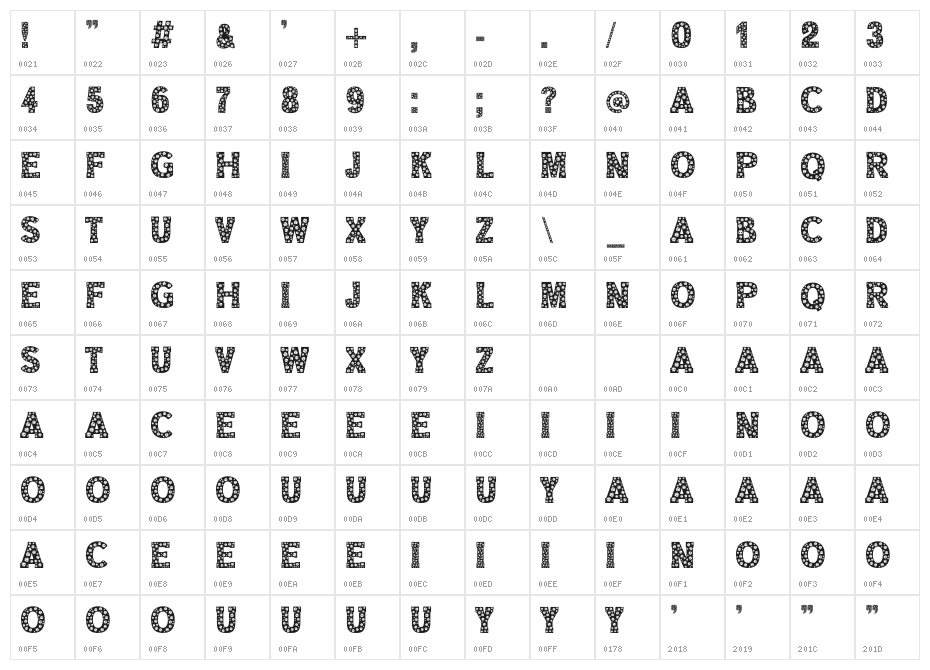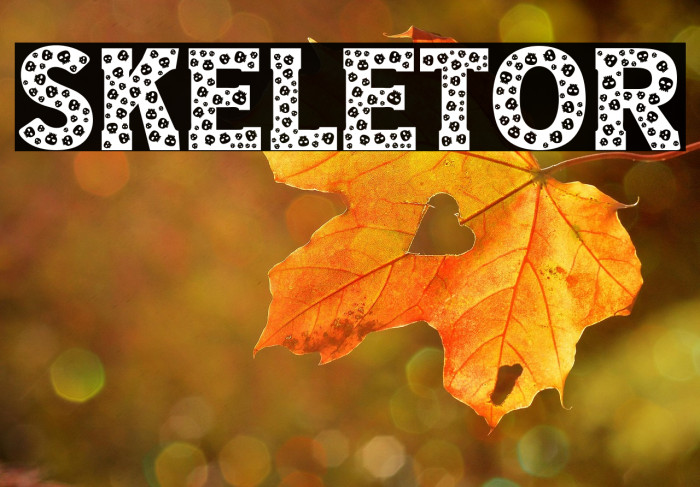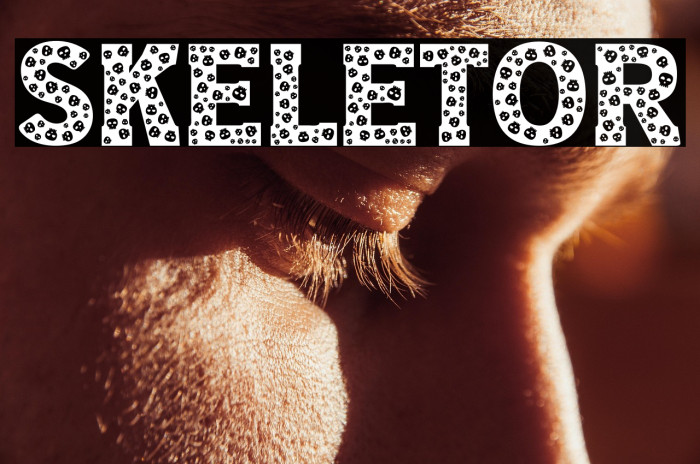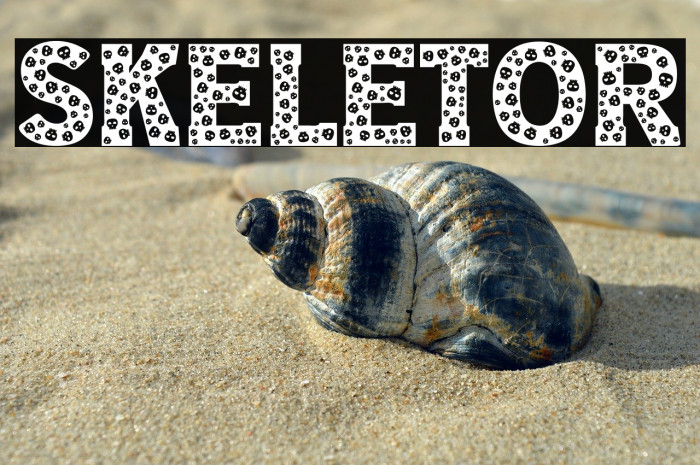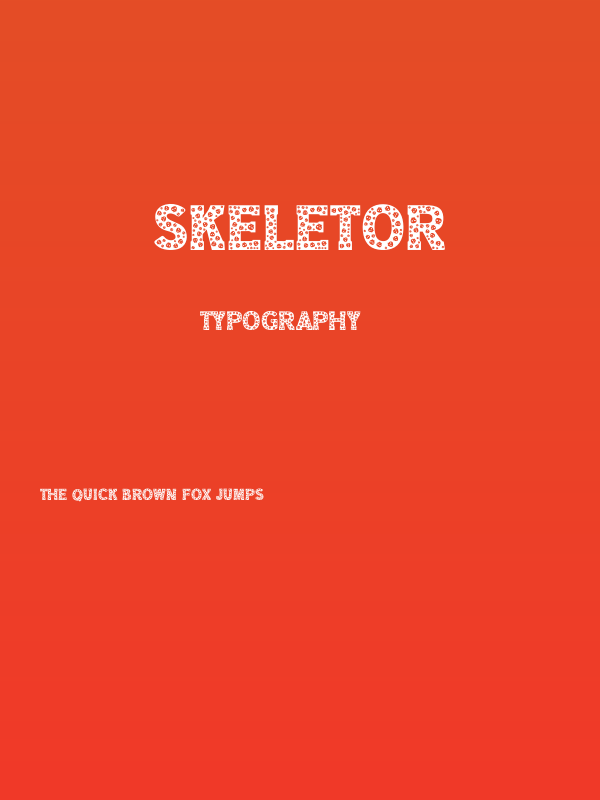
Skeletor Font
Skeletor Description
This font features a playful and spooky design, with each character filled with small skull illustrations. The bold, blocky letters are eye-catching and convey a sense of fun and mischief. The unique pattern within each letter adds a decorative touch, making it suitable for Halloween-themed projects or any design requiring a quirky, eerie aesthetic. The font maintains a consistent style across uppercase, lowercase, numbers, and special characters, ensuring versatility in various applications.
| Proposed Projects | Ideal for Halloween invitations, themed posters, party decorations, and playful branding. |